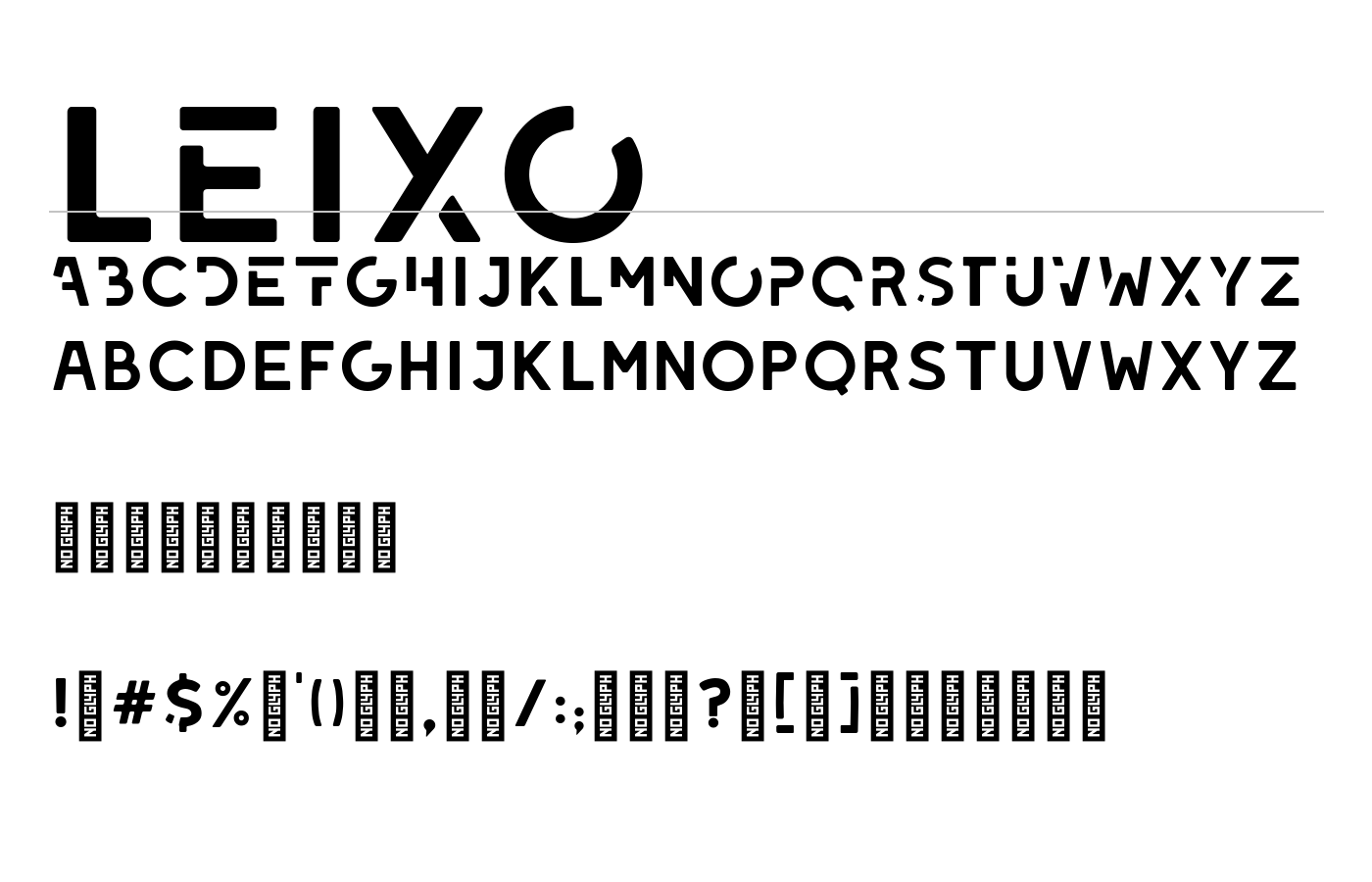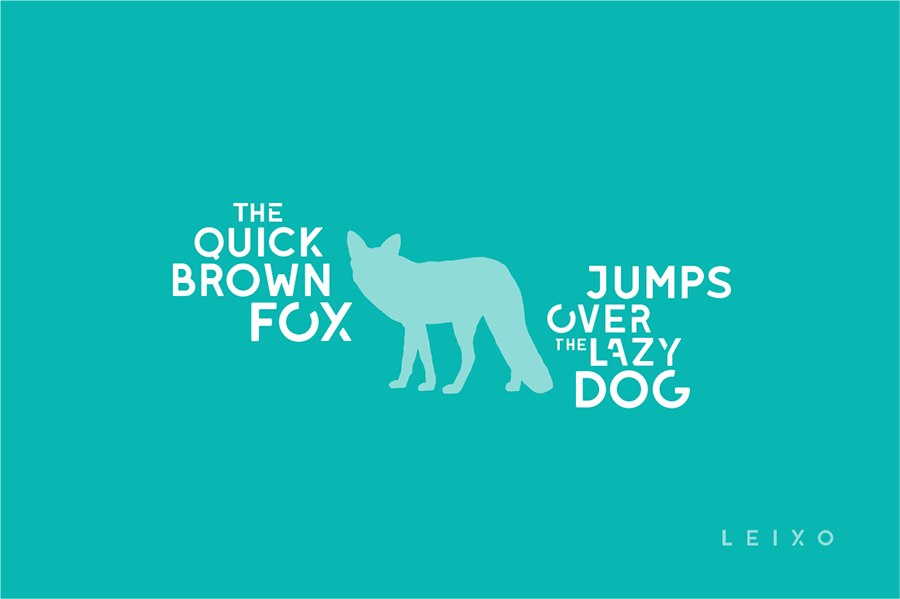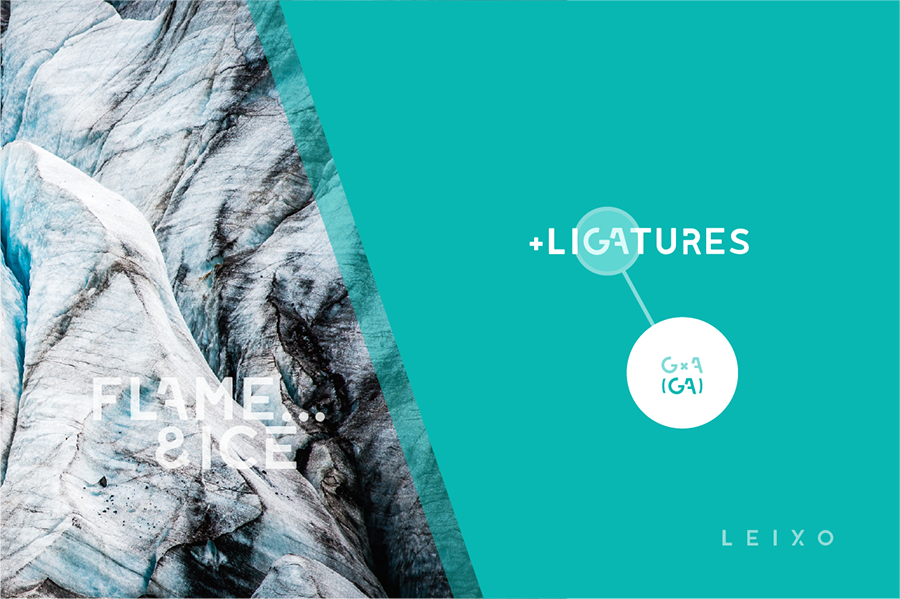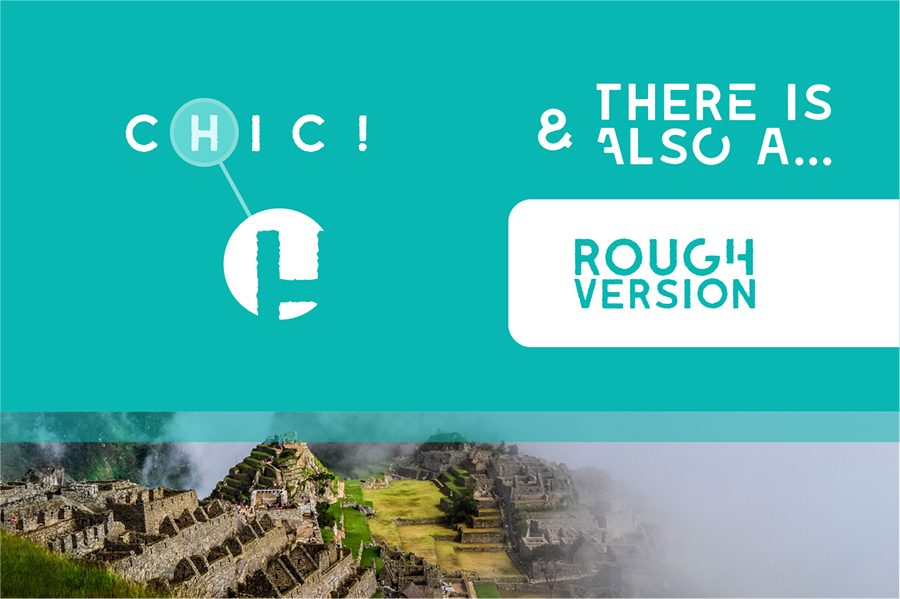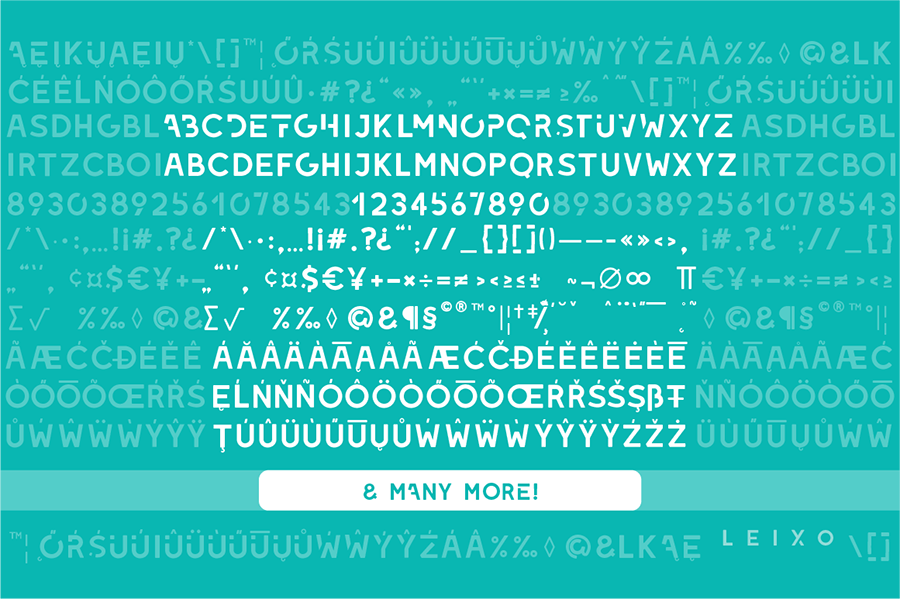
Leixo Stylish Stencil is a bold, modern sans serif font with a stencil design that adds a distinctive, industrial edge. Its clean, geometric shapes combined with sharp cutouts create a strong visual impact, making it perfect for logos, headlines, and branding that seek a contemporary, urban vibe. This font works well in contexts where a stylish yet tough aesthetic is desired, such as fashion labels, posters, and digital media.
Leixo Stylish Stencil Font
About Leixo Stylish Stencil Font
| Font family | Leixo Stylish Stencil Font |
| Designer | Christoph Dörre |